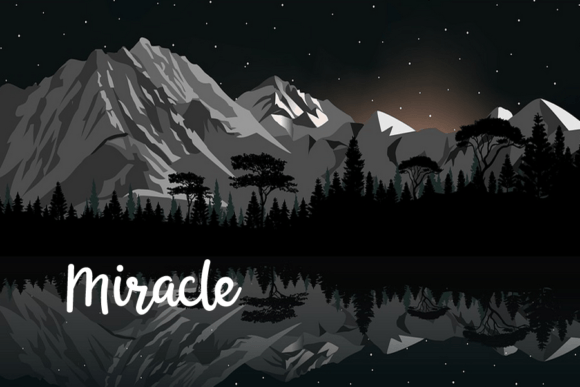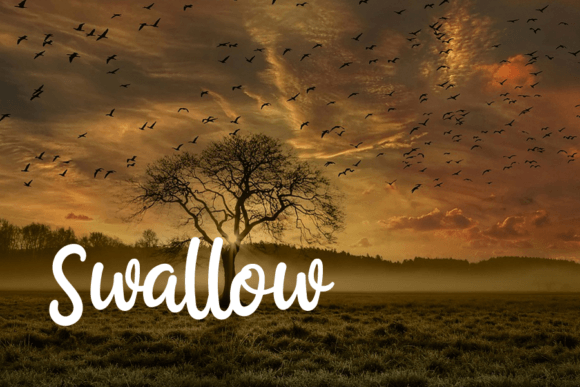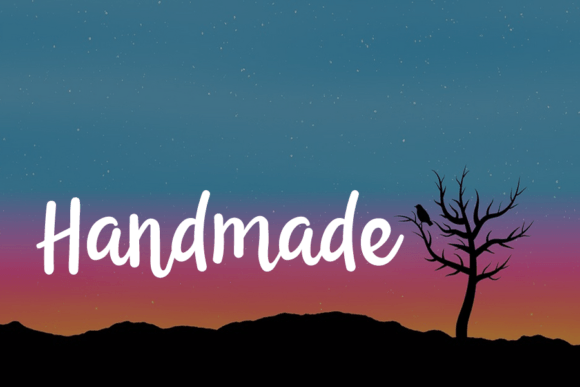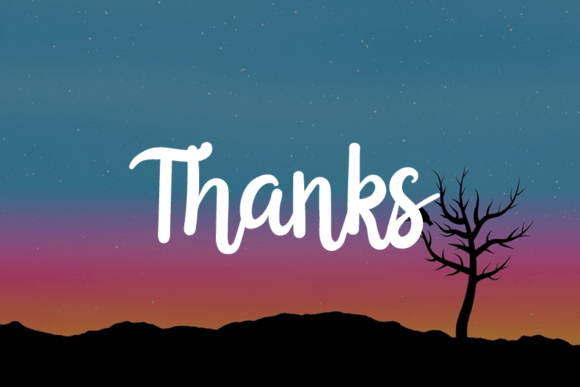
Introduction to Ingredient Font
Ingredient is a modern and friendly handwritten font.
Key Features of Ingredient Font
Why Choose Ingredient Font?
Ingredient Font offers exceptional quality and versatility, making it a valuable addition to your design toolkit. Whether you’re creating for personal projects or commercial use, Ingredient Font delivers professional results.